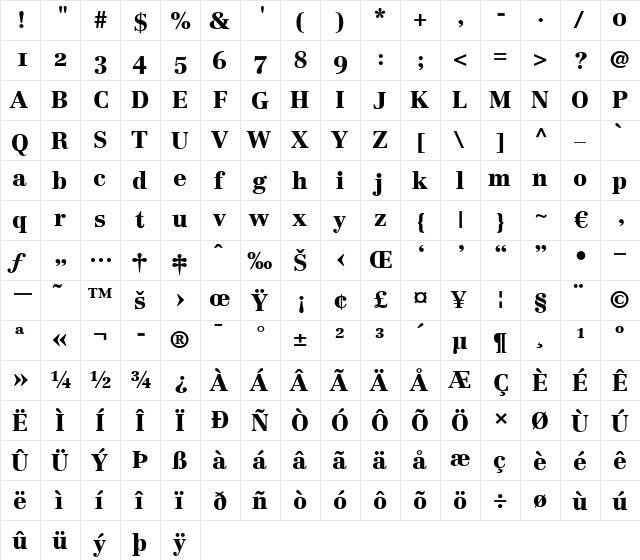
Centennial BlackOsF Regular
Design Context for Centennial BlackOsF Typeface
Centennial BlackOsF is a composed and adaptable typeface that performs quietly and consistently across a wide range of design contexts.